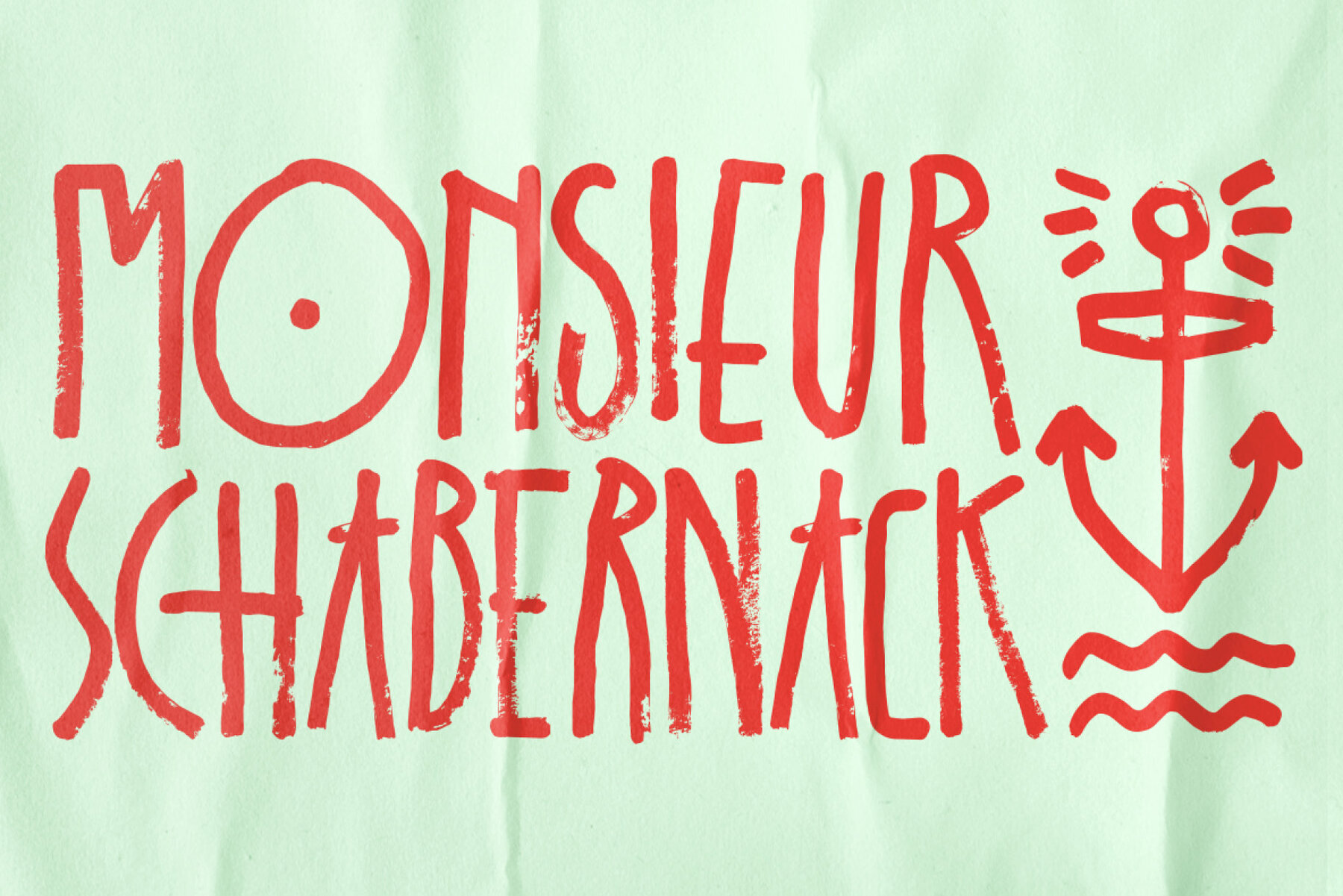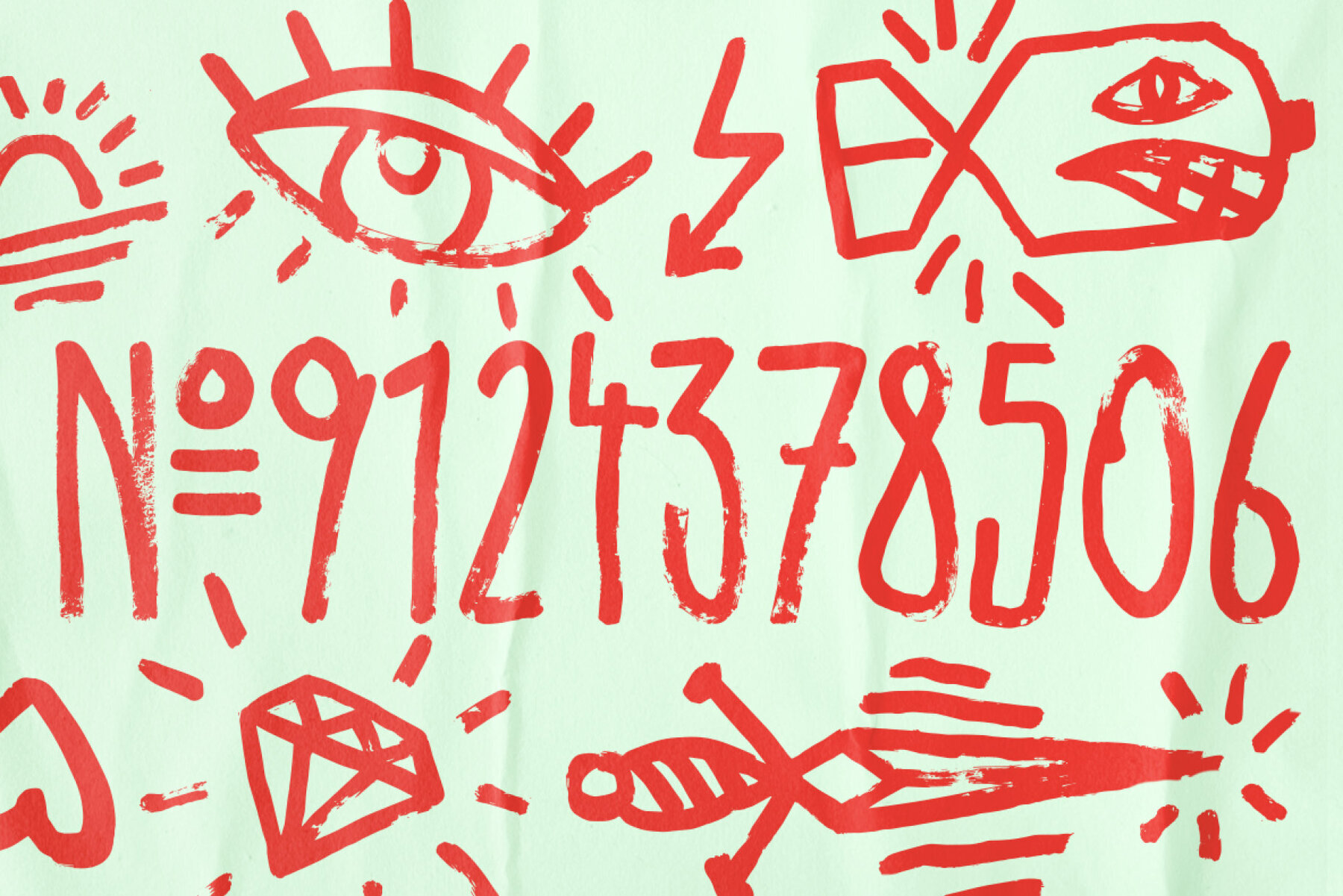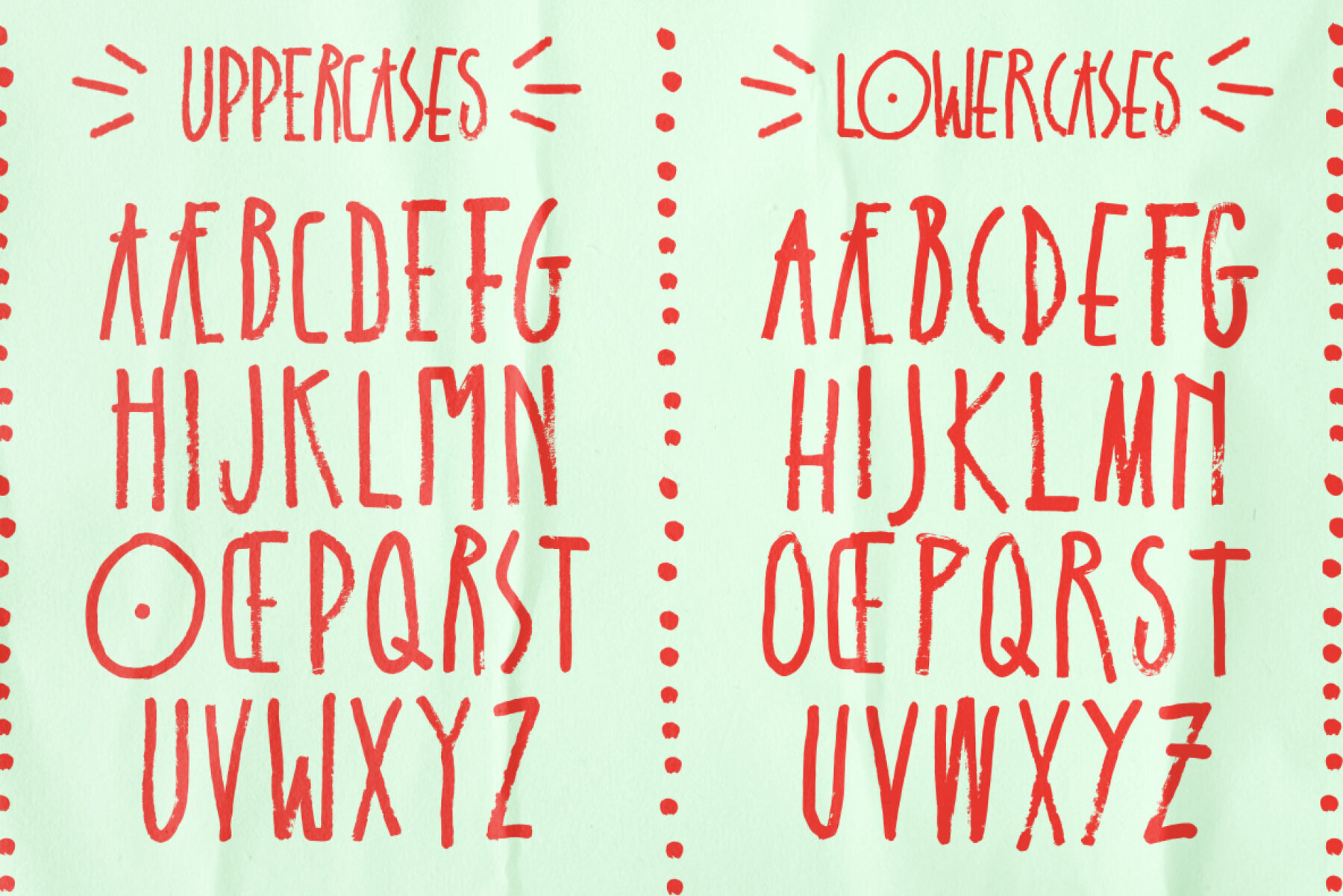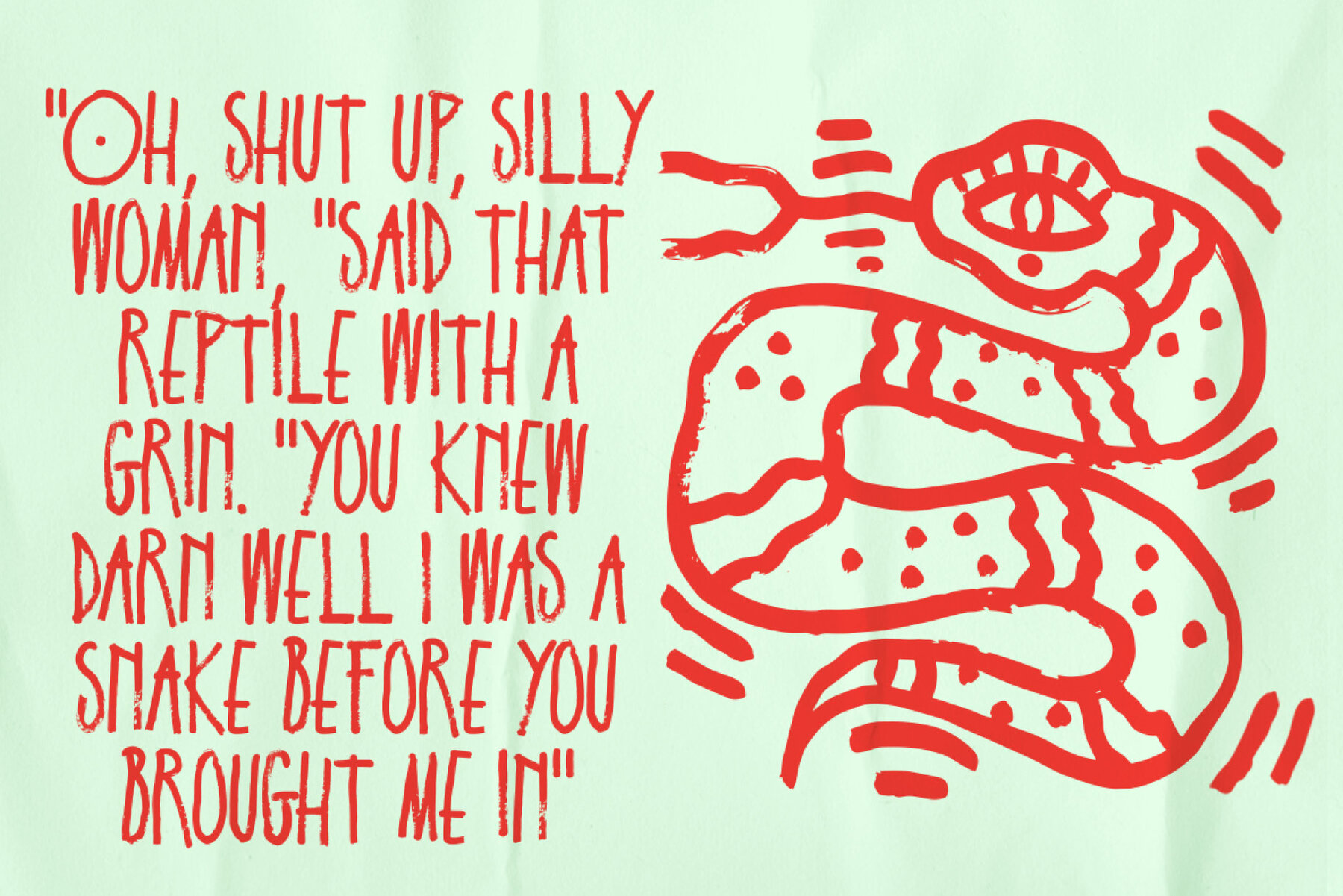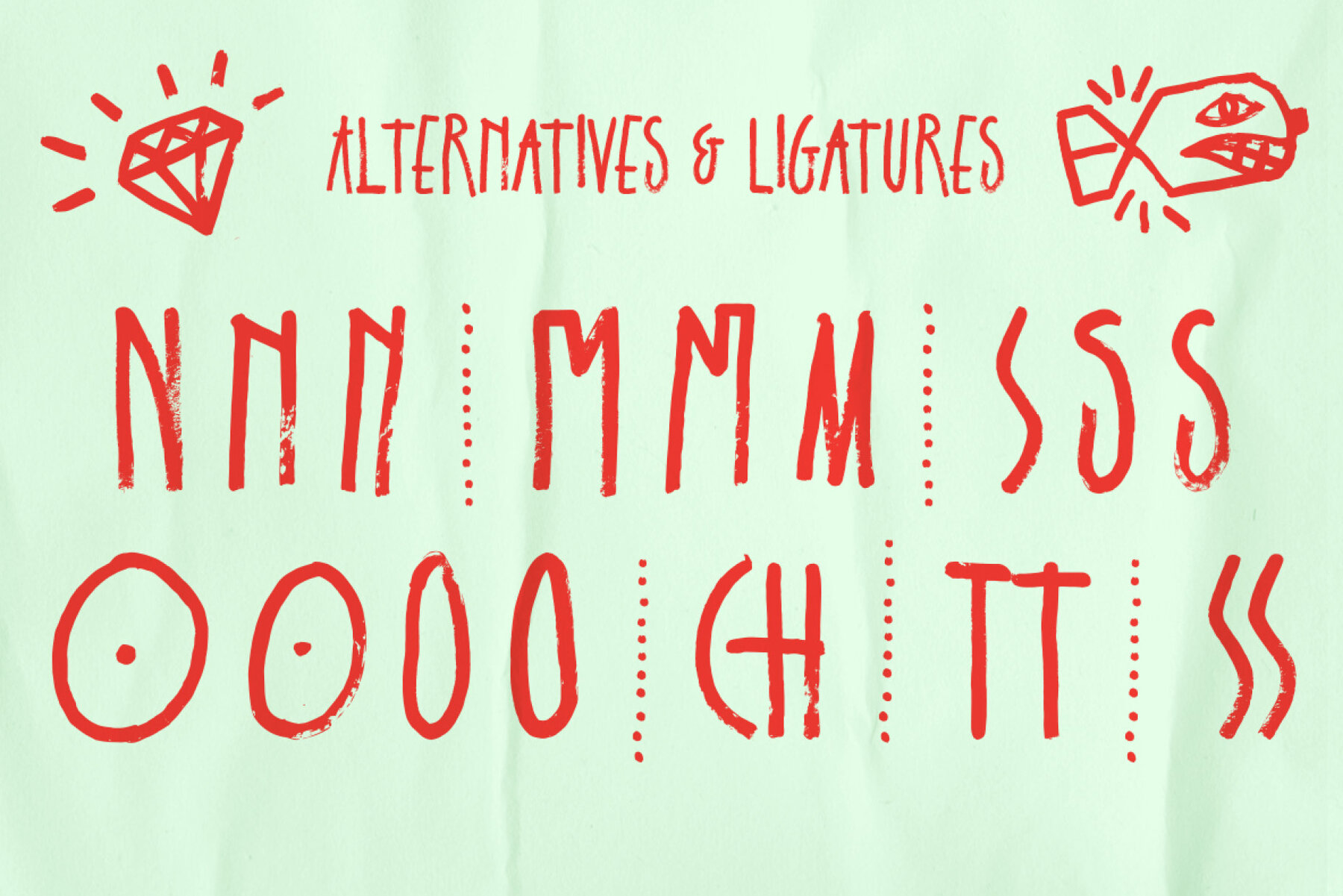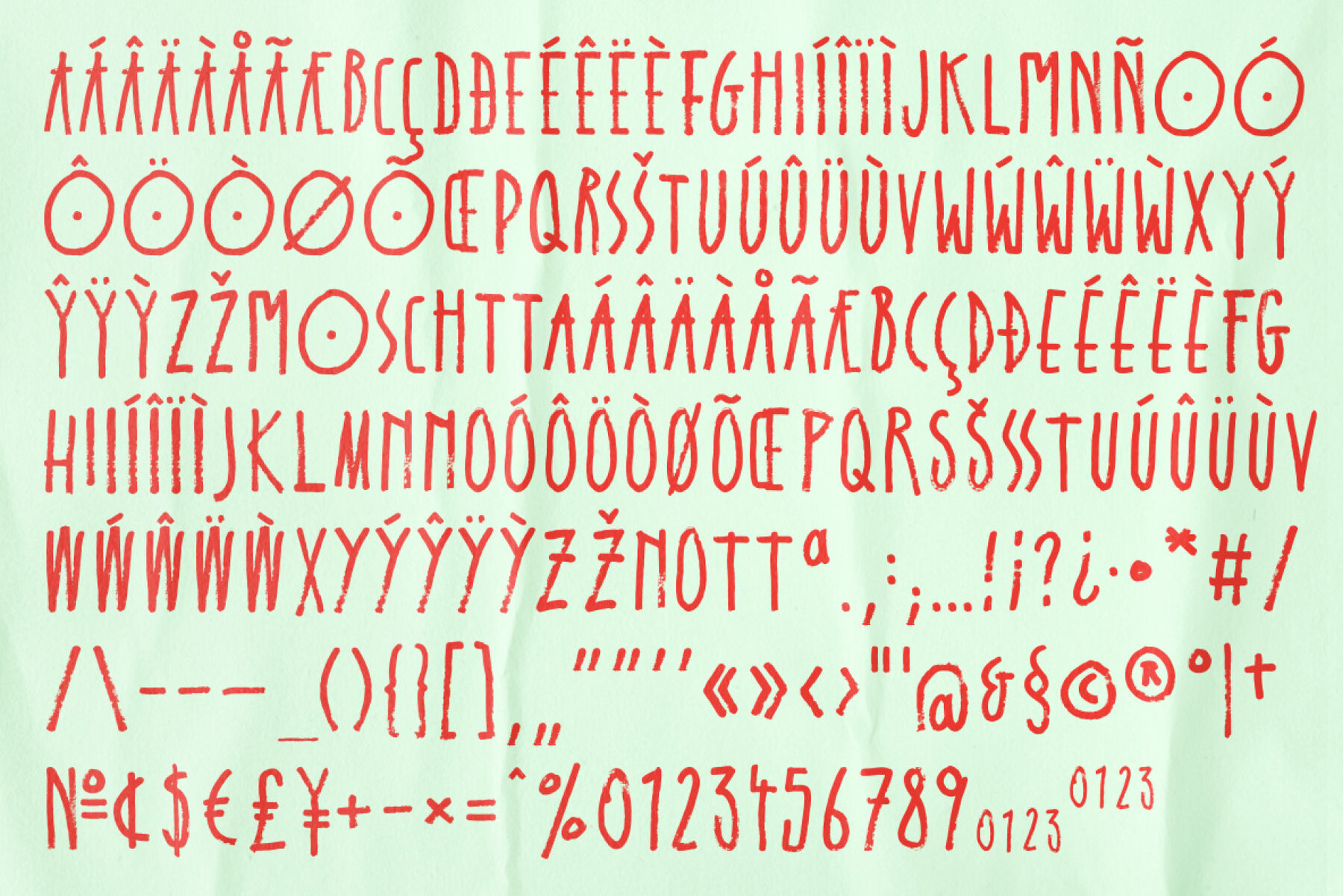
Schabernack One Font
Schabernack One Regular
Schabernack One stands out with its vibrant brushwork, perfect for adding a whimsical touch to your projects. This font's doodly nature makes it an ideal choice for creative directors looking to infuse their designs with a playful and artistic flair.Schabernack One: Funky Handwritten Brush Font